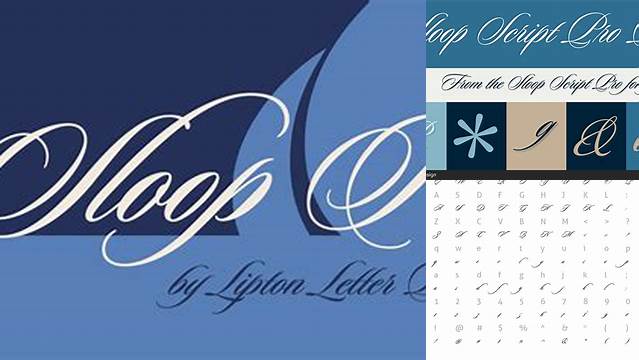
Hey guys, are you looking to jazz up your designs with a touch of elegance and flair? Well, look no further because we're diving headfirst into the world of the Sloop Script Pro font! This font is a real gem, and today, we're going to cover how you can get your hands on a free TTF download and unleash its creative potential. We'll explore everything from what makes this font so special to where you can safely and legally snag it. So, buckle up and let's get started on this font-tastic adventure!
What Makes Sloop Script Pro Font So Special?
First things first, what's all the hype about the Sloop Script Pro font? Think of it as the Audrey Hepburn of fonts – graceful, stylish, and undeniably charming. This font is a gorgeous script that perfectly balances a classic feel with a modern twist. The designers have clearly poured their hearts into crafting a font that's both readable and visually stunning.
The Sloop Script Pro font boasts a wide range of features that set it apart from the crowd. It typically includes numerous ligatures, which are those fancy connections between letters that give the script a seamless, handwritten look. This is what makes it so unique and professional. You can also find alternate characters that allow you to customize the look even further. The font's versatility is another huge plus. Whether you're working on a wedding invitation, a logo, a website header, or a social media post, the Sloop Script Pro font can effortlessly adapt to your needs. It adds a touch of sophistication and personality that's hard to ignore. Seriously, this font is incredibly adaptable. Need something elegant? Sloop Script Pro. Need something friendly and approachable? Sloop Script Pro. It's like having a whole arsenal of design options in a single font family! Also, the design is highly legible, making it a great choice for body text and headings alike, and the details are very good. So if you want something that will make your brand more recognizable, this font is what you're looking for.
Another thing that makes it special is the attention to detail in its design. The curves are smooth, the lines are clean, and the overall aesthetic is just chef's kiss. This level of craftsmanship really makes your work stand out and shows your audience that you care about quality. It's not just a font; it's a statement. It whispers, "I appreciate the finer things in life." Now, the design is not just for aesthetic purposes, but also for improving user experience. This is why it is used in many different areas of design, from print to web design and even mobile applications. So that the user can experience everything in the best way.